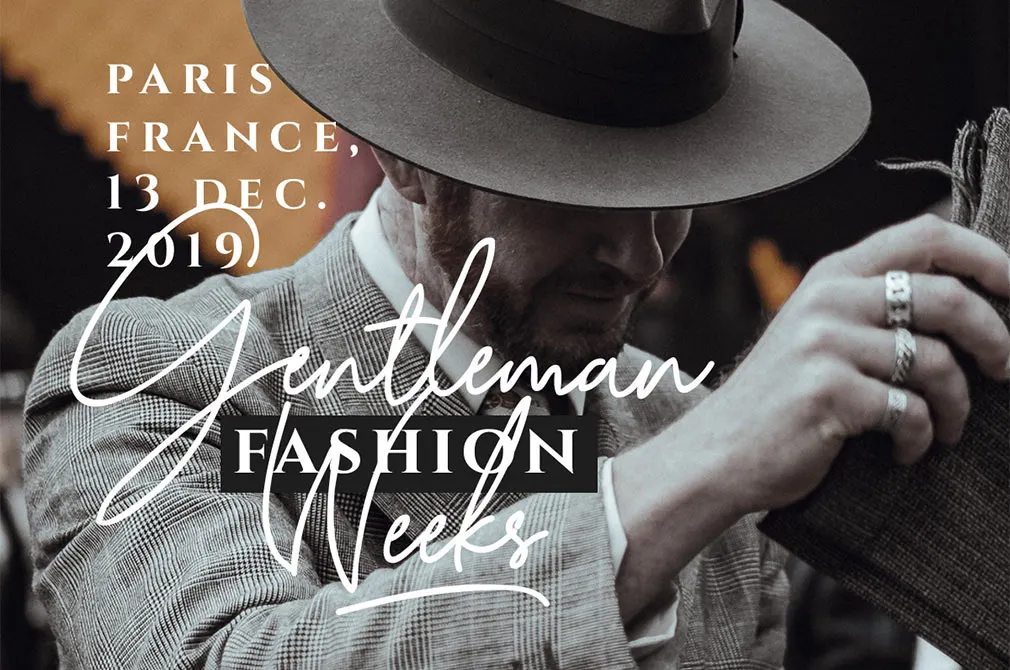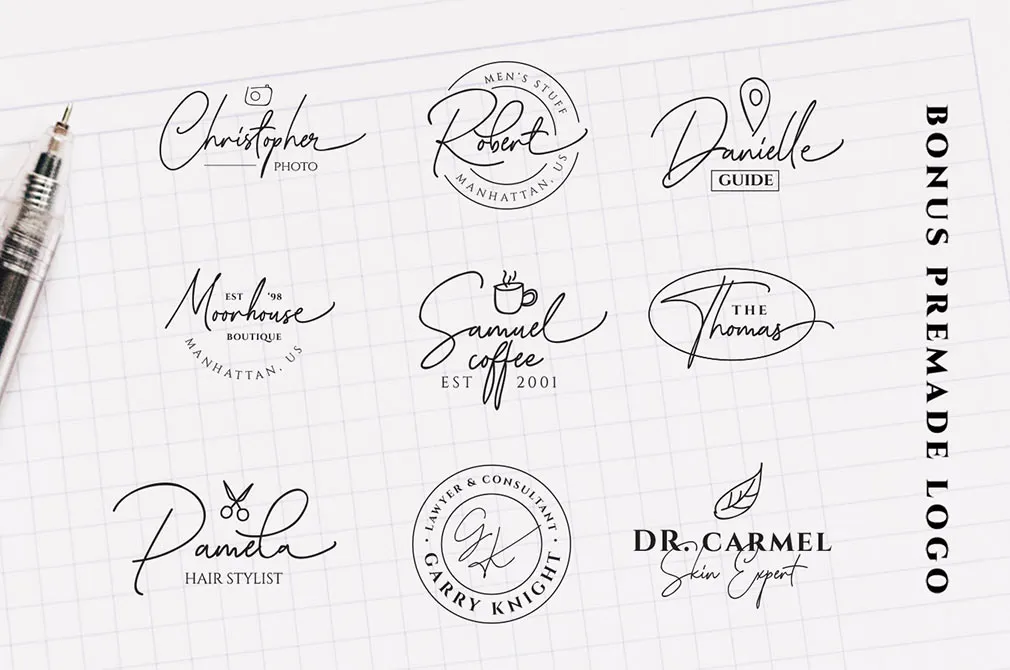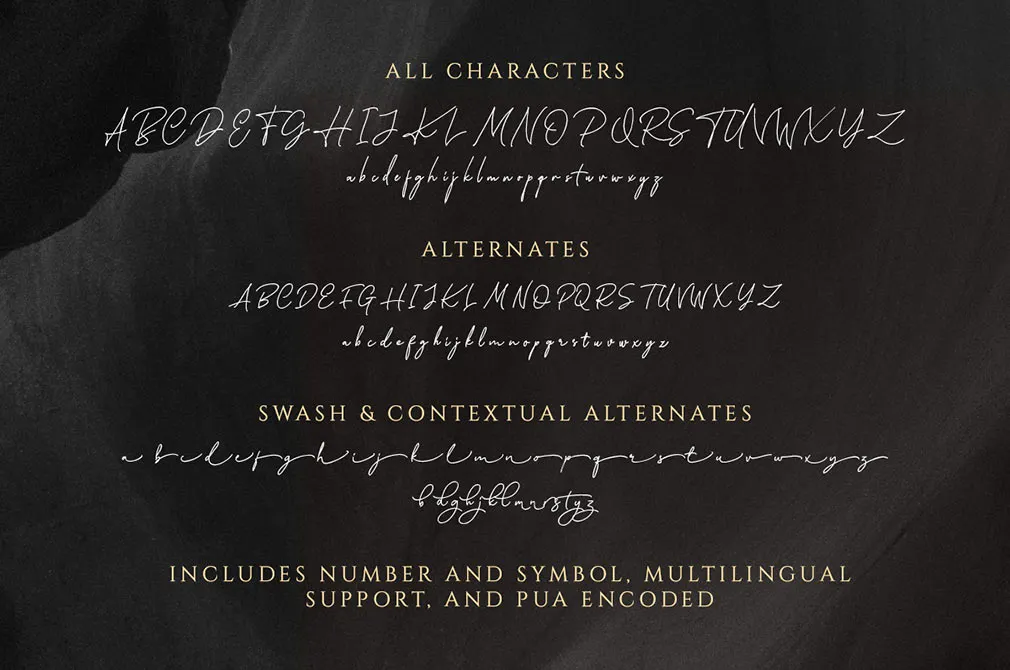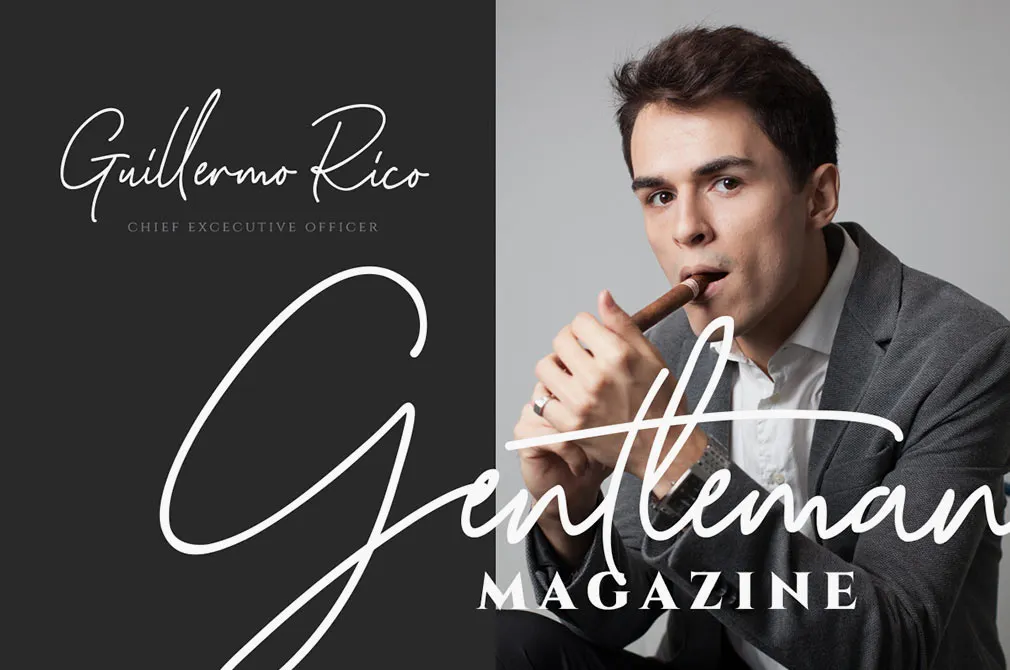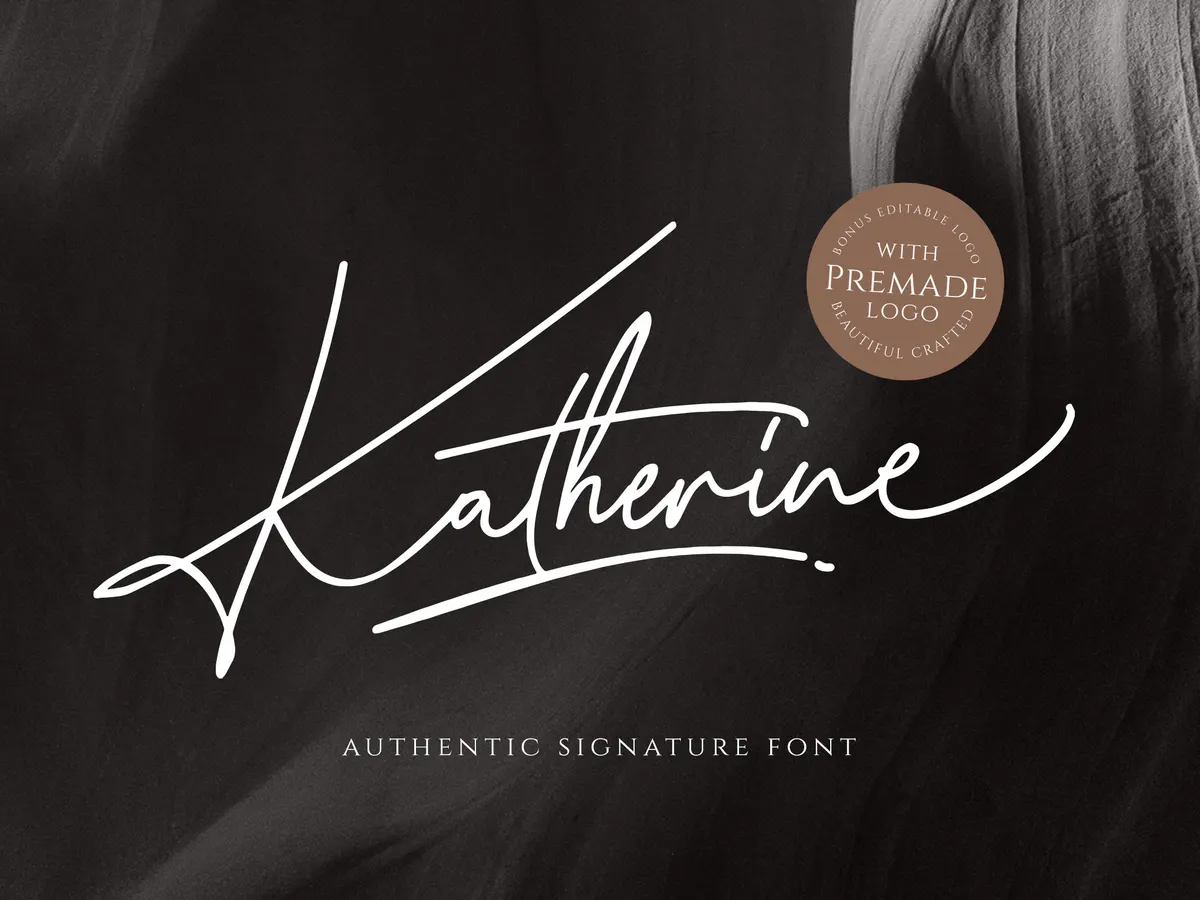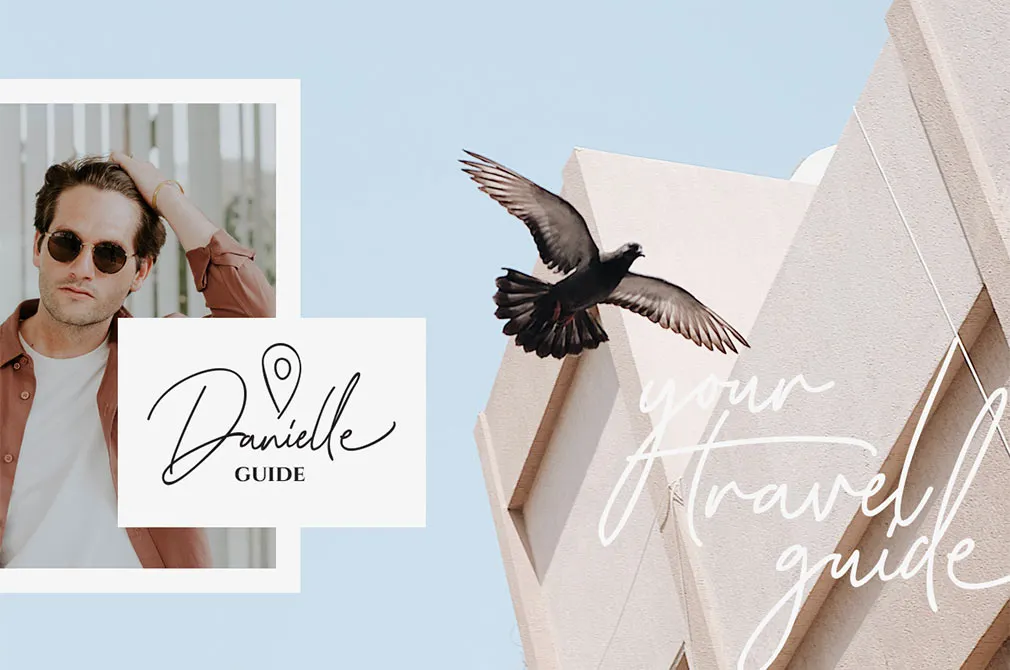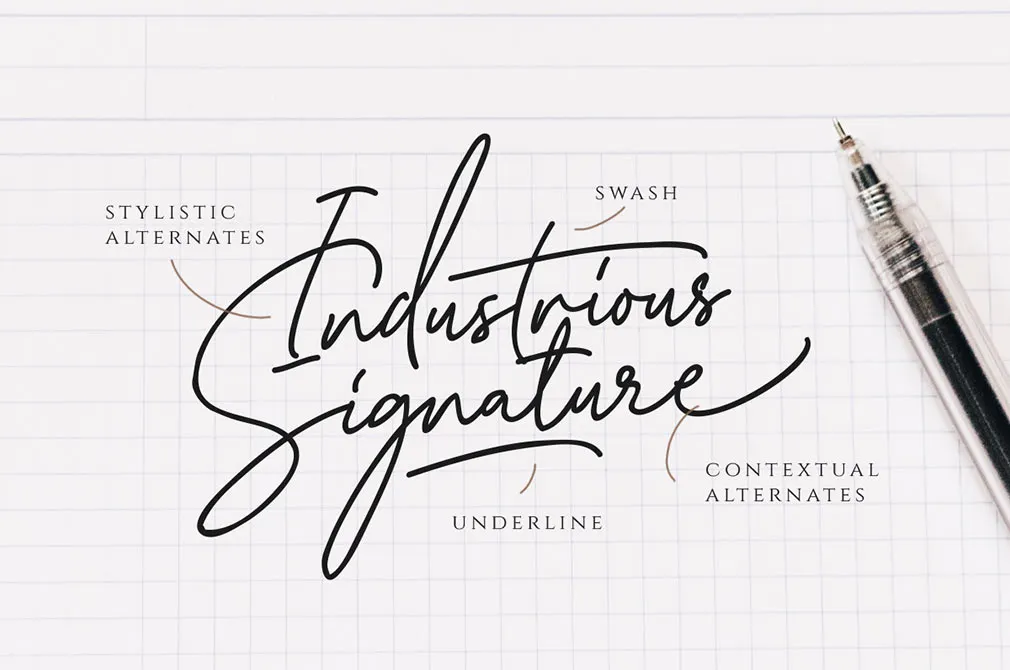
Katherine Signature Font
Is there anything more sophisticated than a signature font? Well, only if it comes with premade logos, fitting the implied style to complete the composition. That's, actually, why this script is here.
Katherine is an authentic signature font that contains lowercase and uppercase symbols, supporting multi-language inscriptions. Swash alternates, ligatures, numbers ask for something and it's already here! To make this font more wondrous, there are 9 premade logos included. Katherine is suitable for branding, fashion designs, wedding invitations and cards, or inspiring handwritten quotes. Now go and create something breathtaking!